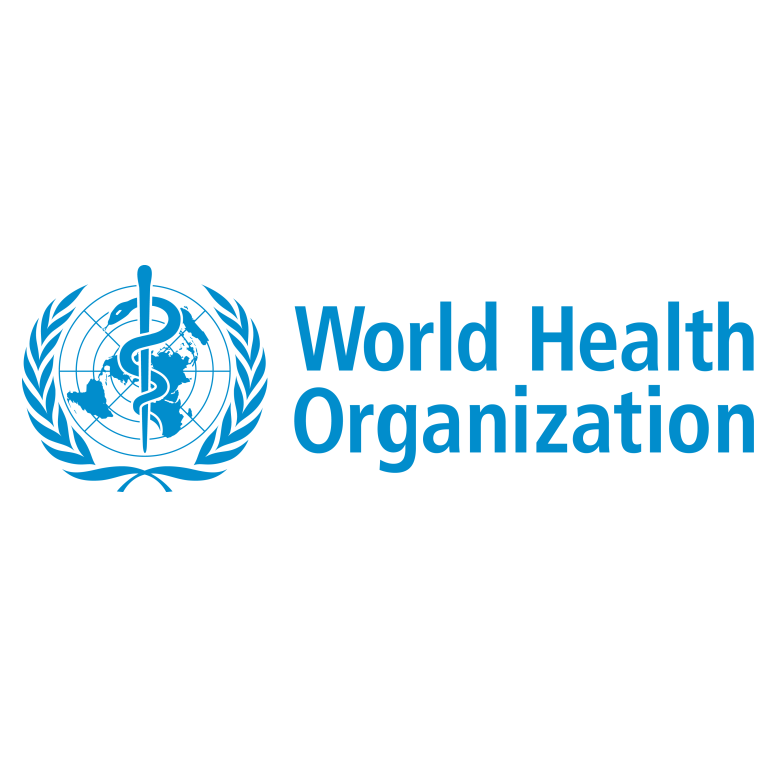
WHO Logo Font
Fonts in UseThe World Health Organization (WHO) is a specialized agency of the United Nations that is responsible for coordinating international efforts to improve public health. Its mission is to build a better, healthier future for people all over the world.
The World Health Organization (WHO) logo features a staff with a serpent coiled around it, which is a traditional symbol of medicine, above the UN symbol. The logo also includes the WHO wordmark written in a font that resembles the Frutiger Bold Condensed typeface by Adrian Frutiger.